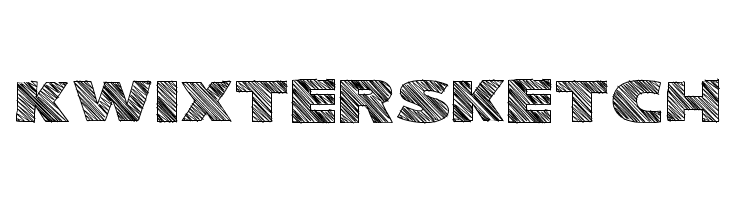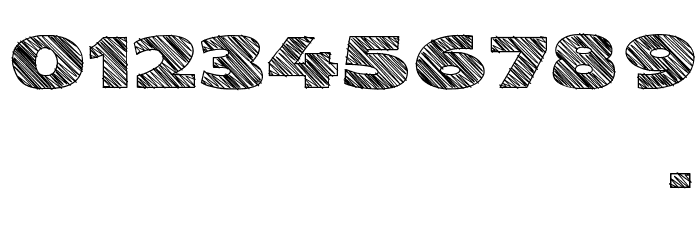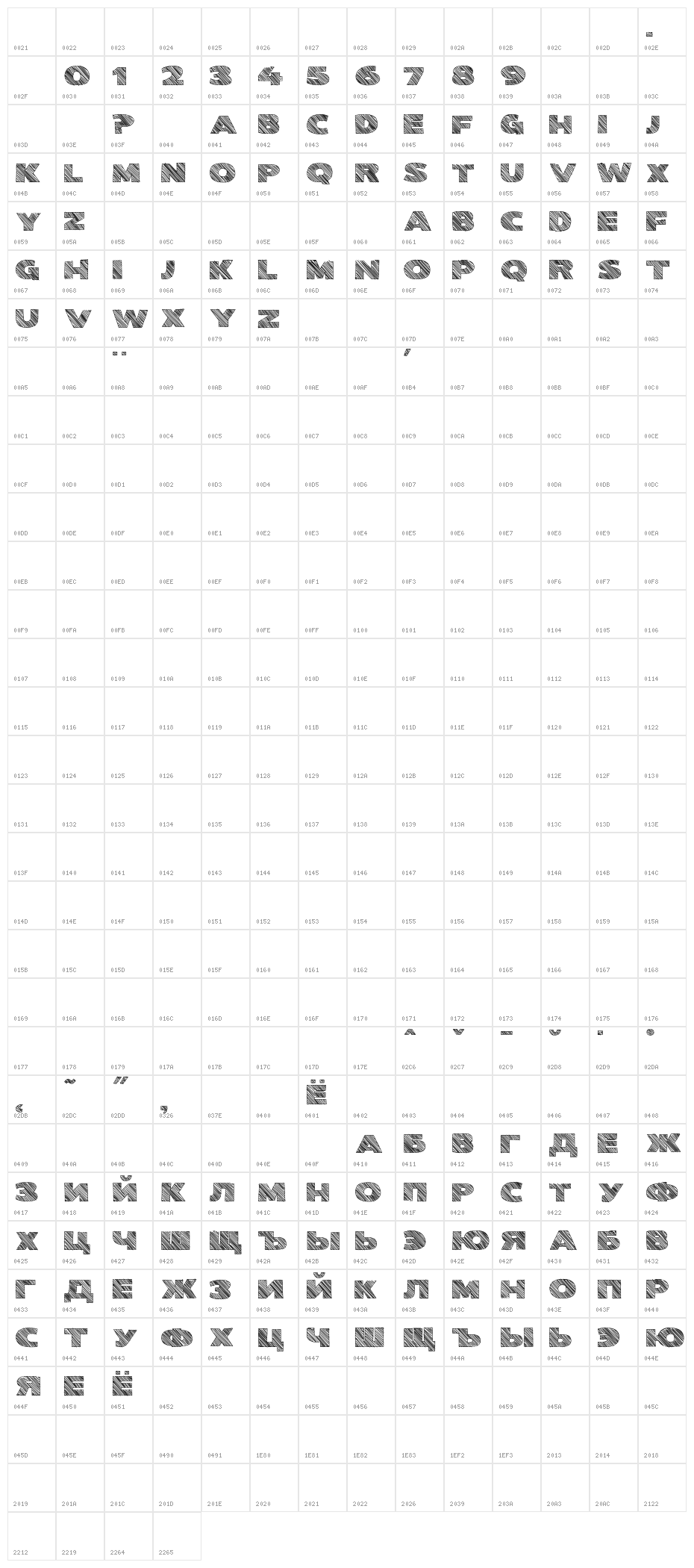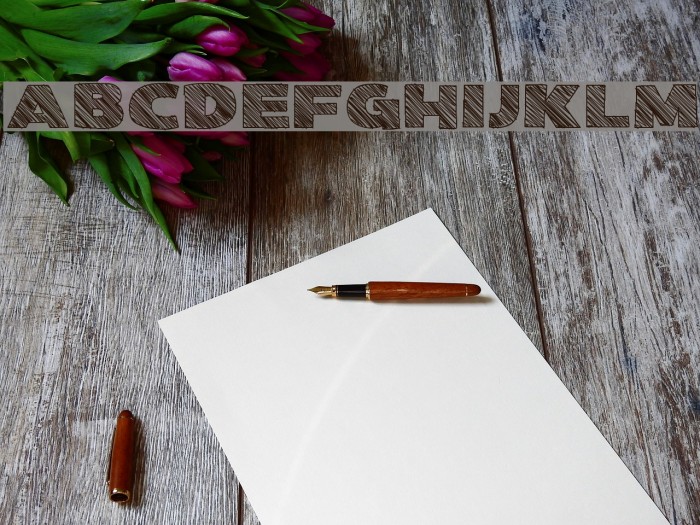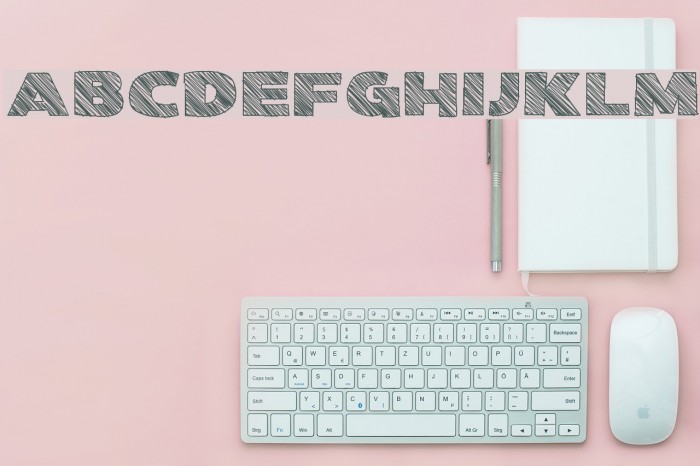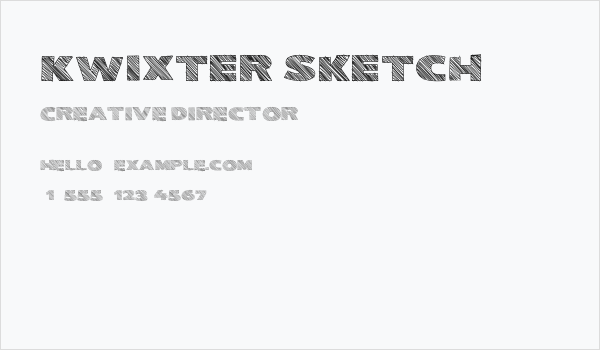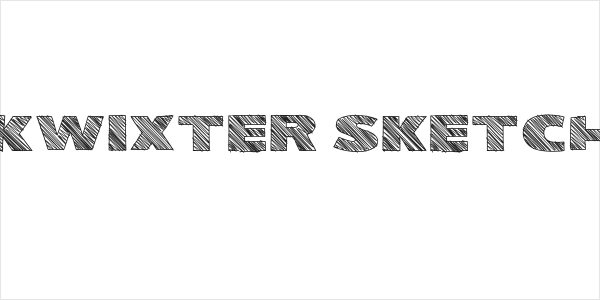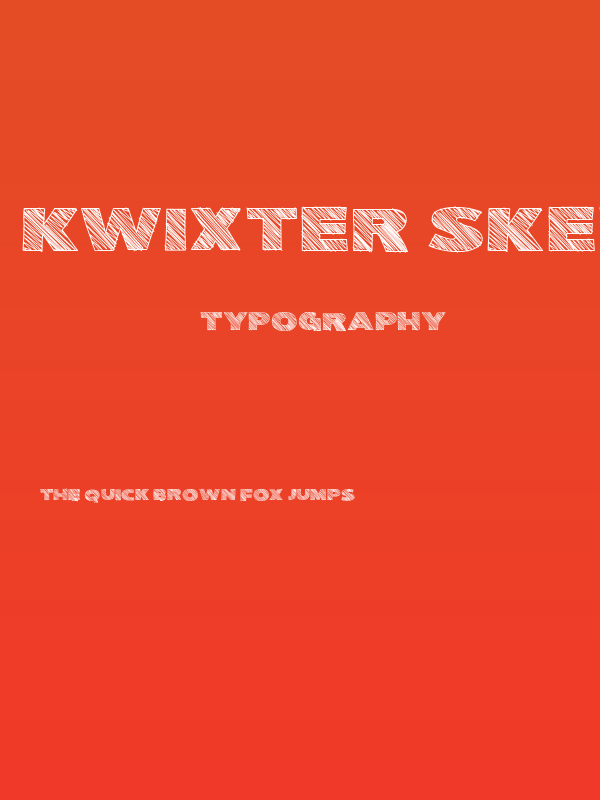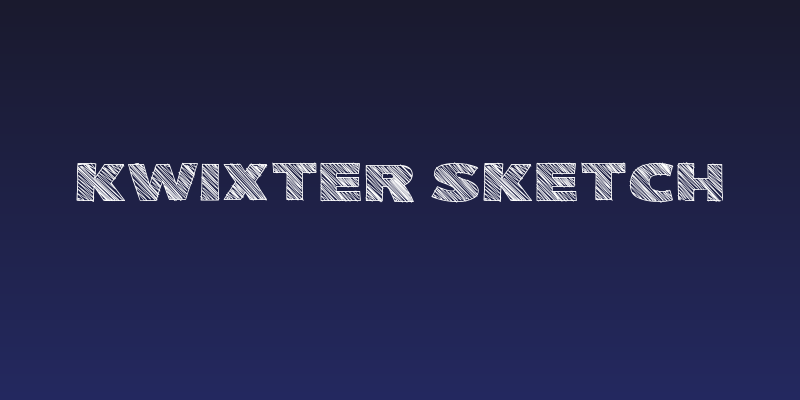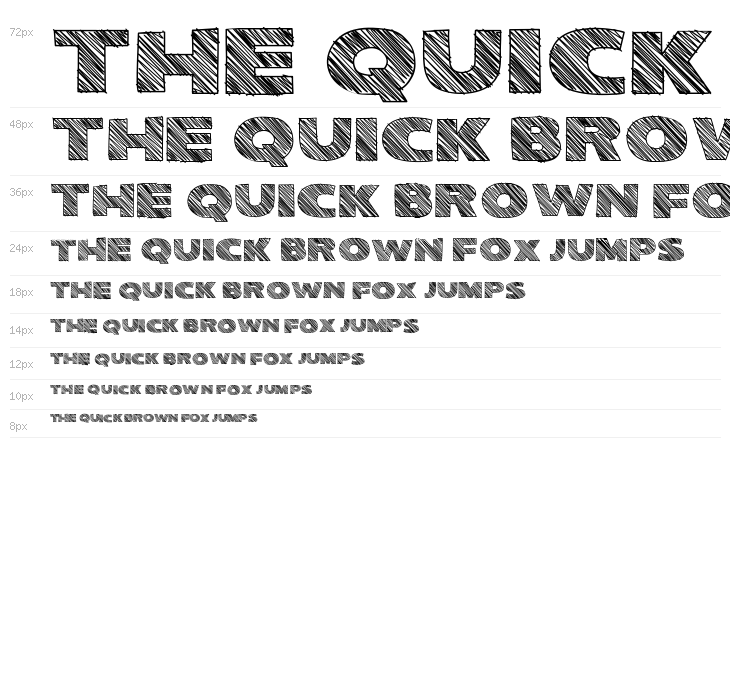
This font features a bold, sketch-like appearance with a hand-drawn aesthetic. The characters are filled with diagonal lines, giving them a textured, artistic look. The uppercase letters are uniform in height, while the numbers maintain a consistent style. The font's playful and creative design makes it stand out, ideal for projects that require a unique and engaging visual element. Its decorative nature is perfect for adding a personal touch to various designs.
| Proposed Projects | Ideal for creative projects like posters, invitations, and branding materials that require a distinctive and artistic touch. |